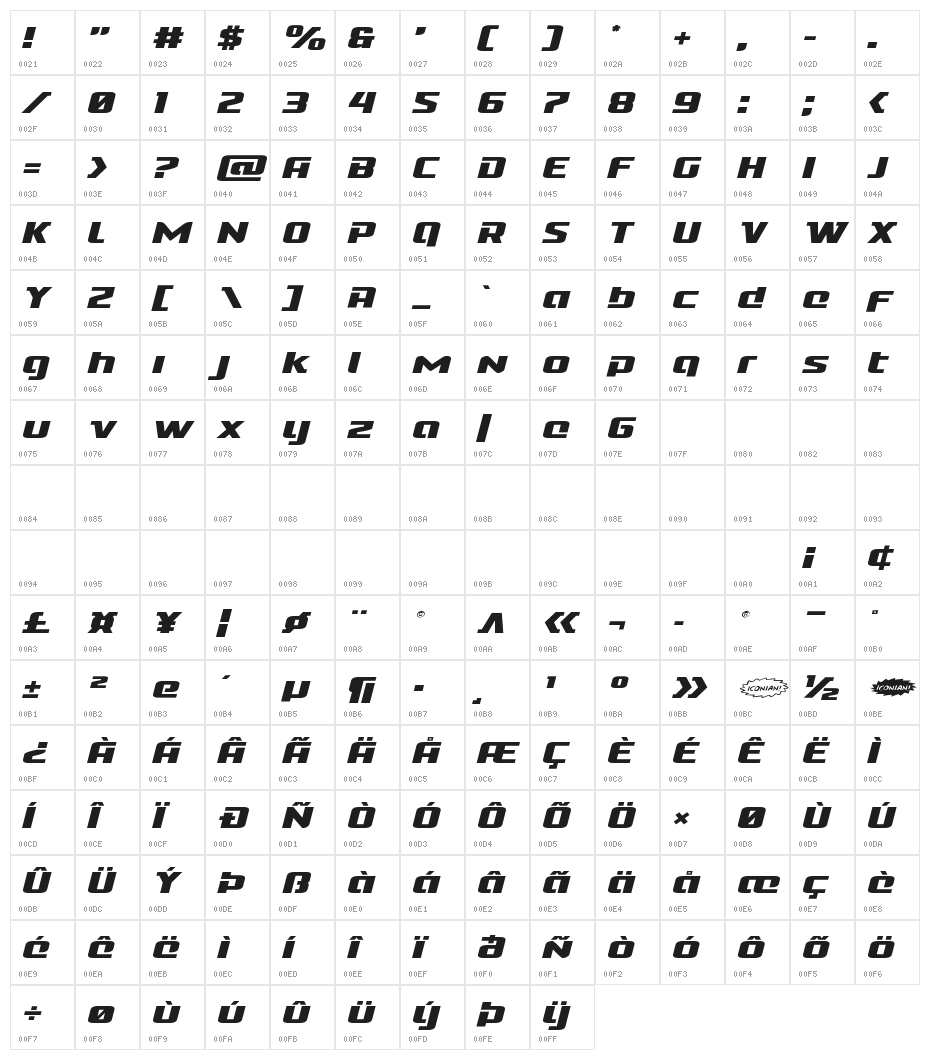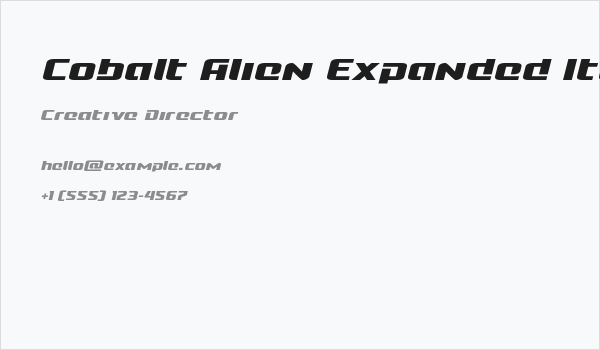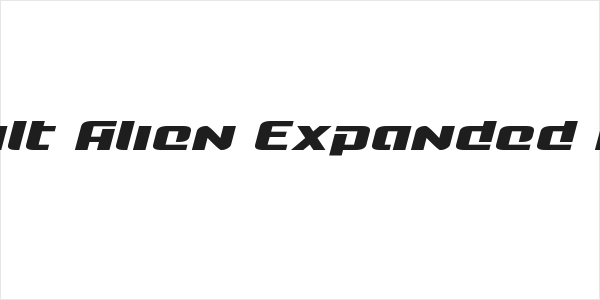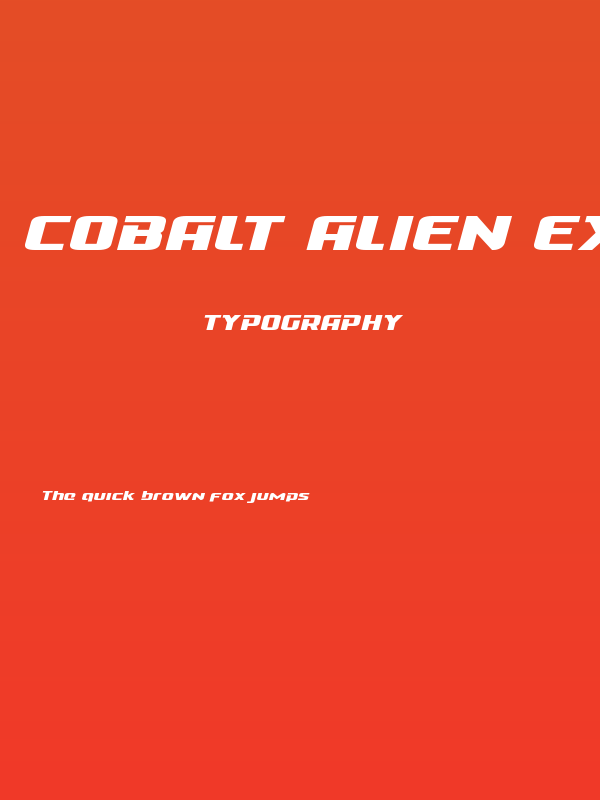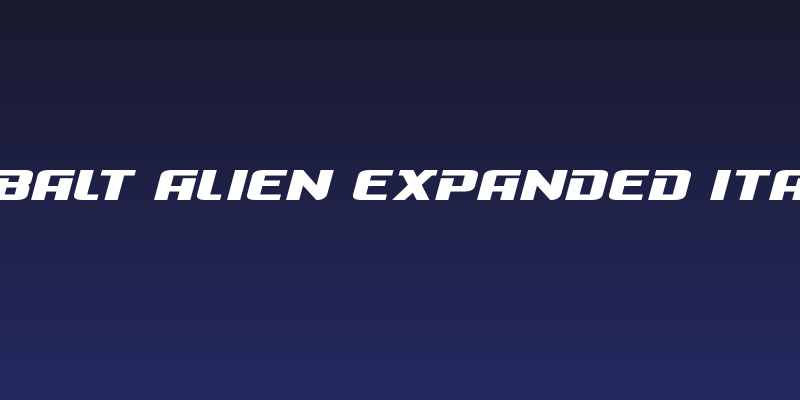
Cobalt Alien Expanded Italic Font
Cobalt Alien Expanded Italic Description
This font features a futuristic and dynamic design, characterized by its bold and italicized letterforms. The expanded width gives it a strong presence, making it ideal for attention-grabbing headlines. The angular and geometric shapes of the characters convey a sense of speed and modernity, while the consistent stroke weight ensures readability. The font includes a full set of uppercase and lowercase letters, numerals, and a variety of special characters, making it versatile for various design needs.
| Proposed Projects | Ideal for sci-fi themed posters, video game titles, technology branding, and futuristic product packaging. |